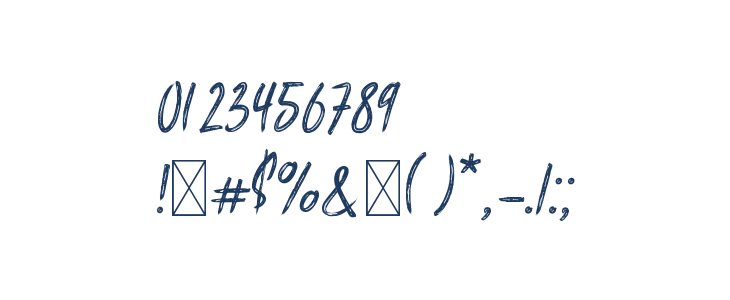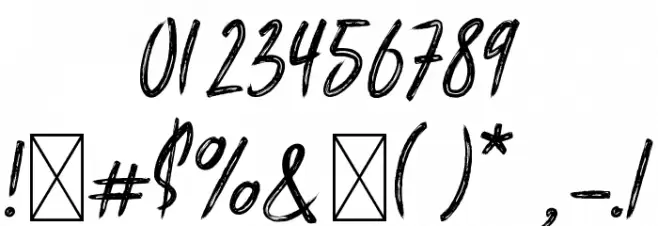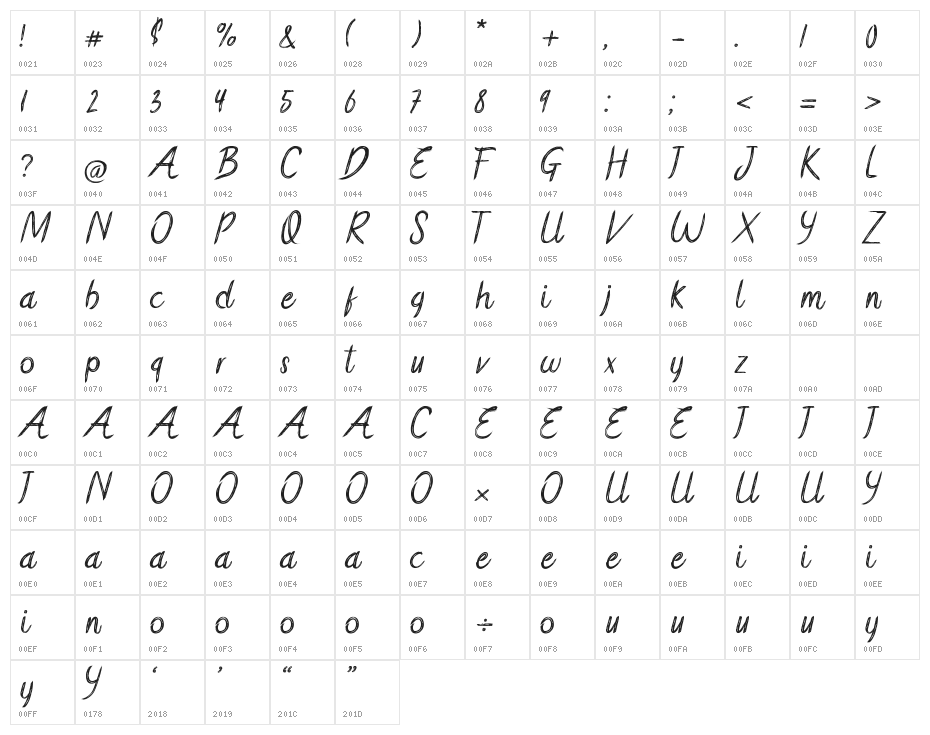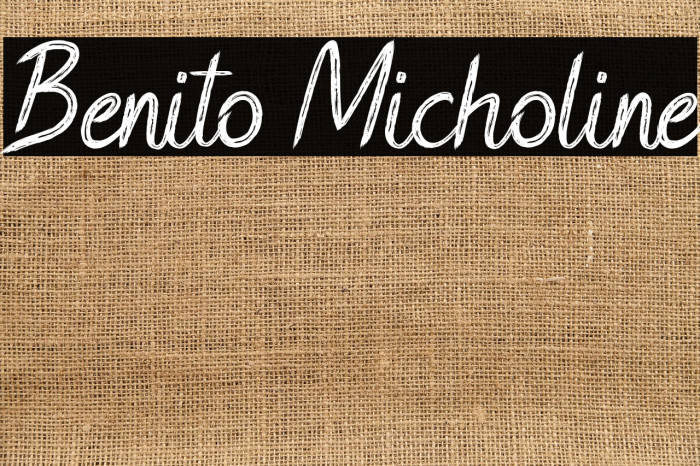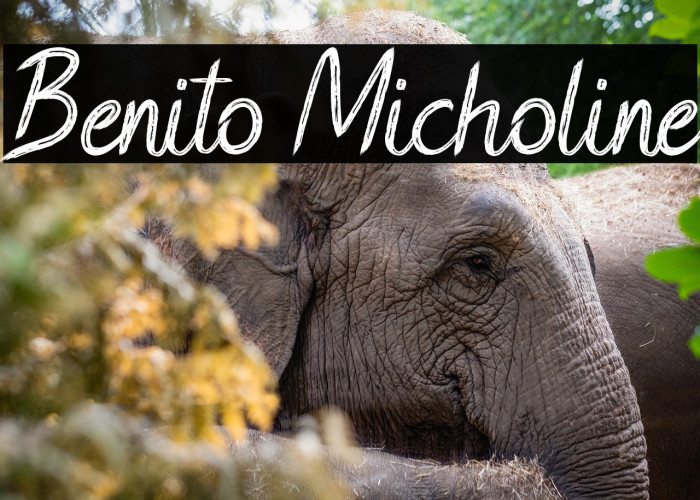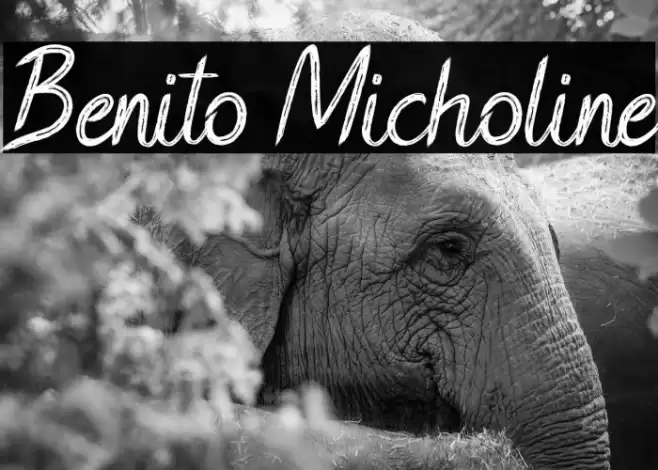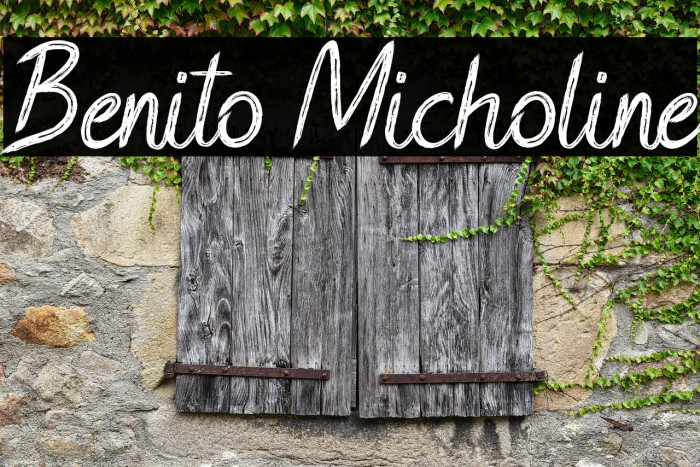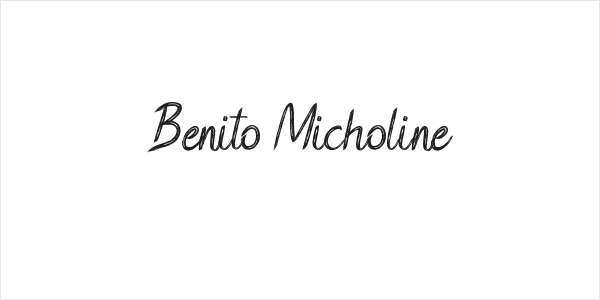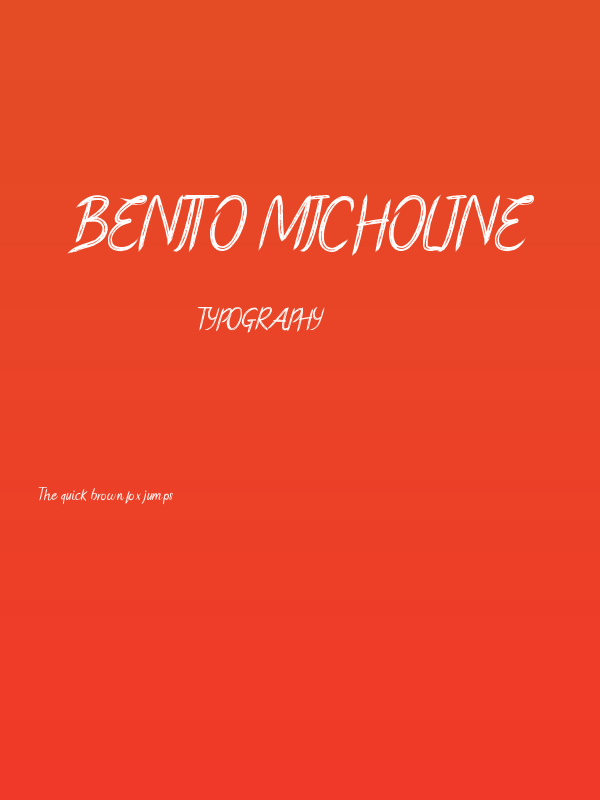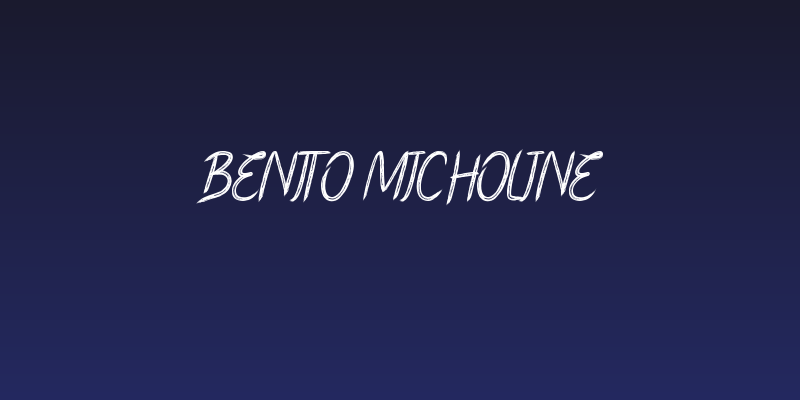
Benito Micholine Font
Benito Micholine Description
This font exudes a dynamic and energetic style, characterized by its bold, handwritten appearance. The letters are crafted with a distinct slant, giving them a sense of movement and fluidity. The strokes are varied, with some letters featuring thicker lines that add emphasis and others with thinner, more delicate touches. This contrast in stroke thickness creates a lively texture, making the font visually engaging. The characters are slightly condensed, allowing for efficient use of space while maintaining readability. The overall style is modern and expressive, suitable for projects that require a personal and artistic touch.